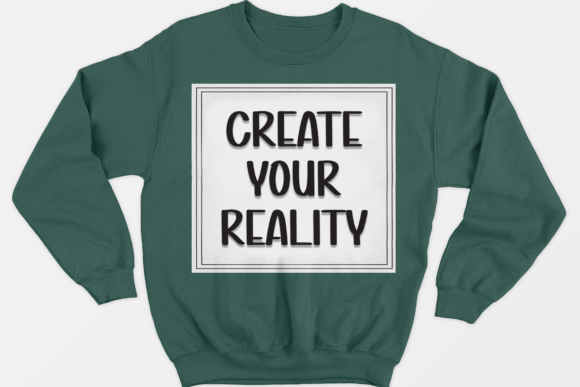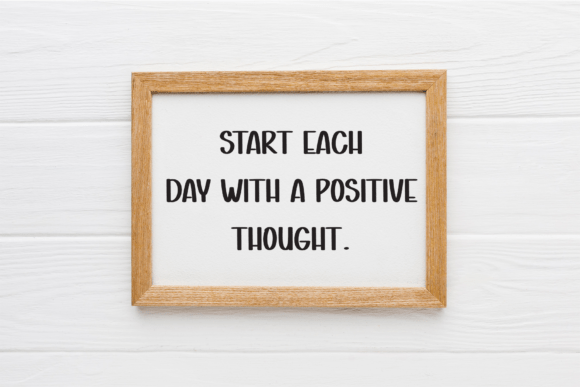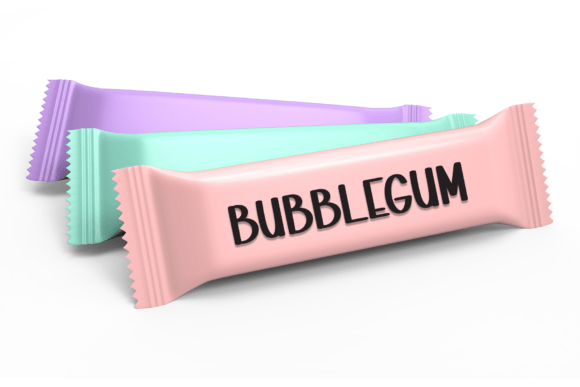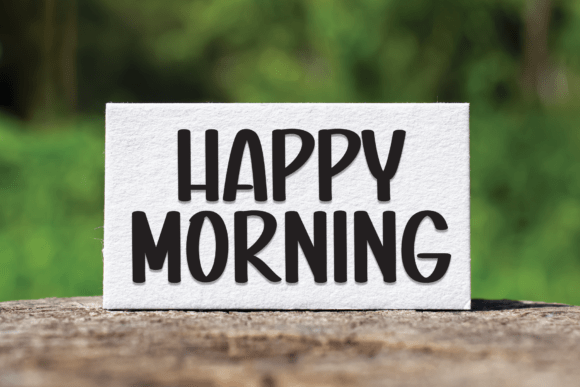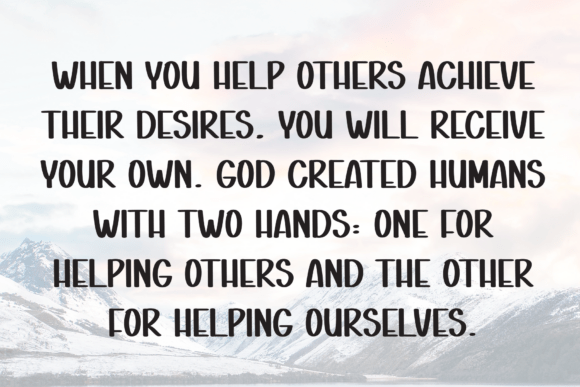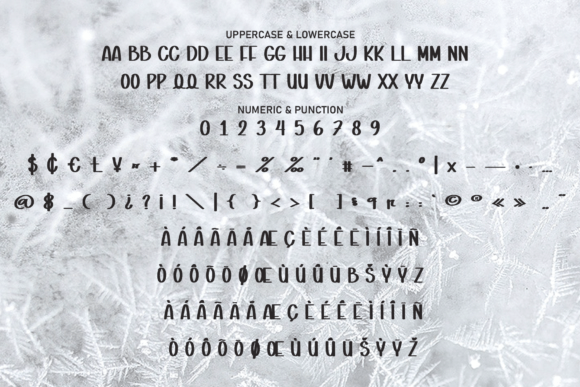
Introduction to Frosting Font
Have you ever found yourself scribbling down ideas for a new design project, only to realize that the perfect font is just out of reach? This is where the Frosting Font comes in – a game-changing addition to any designer’s toolkit. With its effortless blend of simplicity and charm, this free download is poised to elevate your creative project to new heights.
As a valuable design resource, the Frosting Font is perfect for designers looking to add a touch of warmth and personality to their work. Its clean lines, balanced letterforms, and subtle rounded edges create a polished finish that’s sure to impress. Whether you’re working on a branding project, crafting a headline, or designing packaging, this high-quality font is the perfect choice. And with its transparent background, it’s easy to integrate into any design.
Key Features of Frosting Font
- High-quality, unique design ideal for creative projects
- Designed as a versatile design resource for use in digital and print media
Honest Review: Frosting Font
I recently came across the Frosting Font and I must say, I’m quite impressed. This font is a fantastic addition to any design resource collection, offering a unique and eye-catching aesthetic that’s perfect for creative projects.
One of the standout features of the Frosting Font is its transparent background, which allows for seamless integration with any design. This makes it an excellent choice for designers looking to add a touch of elegance to their work. ✨
However, I do have a few reservations about the Frosting Font. ⚠️ The font can be a bit overwhelming if used excessively, and some designers may find it difficult to pair with other typography. Additionally, the font is not available in as many weights as I would like, which can limit its versatility.
Overall, I think the Frosting Font is a great addition to any design resource collection. While it may have some limitations, its unique aesthetic and high-quality design make it a worthwhile download for designers looking to add a touch of creativity to their work.
Designing with Frosting Font
The Frosting Font is a unique and versatile design resource that can add a touch of elegance to any creative project. With its transparent background, it can be easily layered over images or used as a standalone element. You can download it for free to experiment with different design possibilities.
Tips for Getting the Most Out of Frosting Font
To get the most out of Frosting Font, experiment with different font sizes, colors, and layering techniques. You can also combine it with other design elements, such as images or graphics, to create unique and eye-catching designs. Don’t be afraid to try new things and push the boundaries of what’s possible with this versatile font.
Common Use Cases for Frosting Font
Frosting Font is ideal for a variety of creative projects, including wedding invitations, birthday party decorations, and social media graphics. You can also use it to create custom logos, business cards, or other marketing materials. With its high-quality design and transparent background, Frosting Font is the perfect choice for any project that requires a touch of elegance and sophistication.